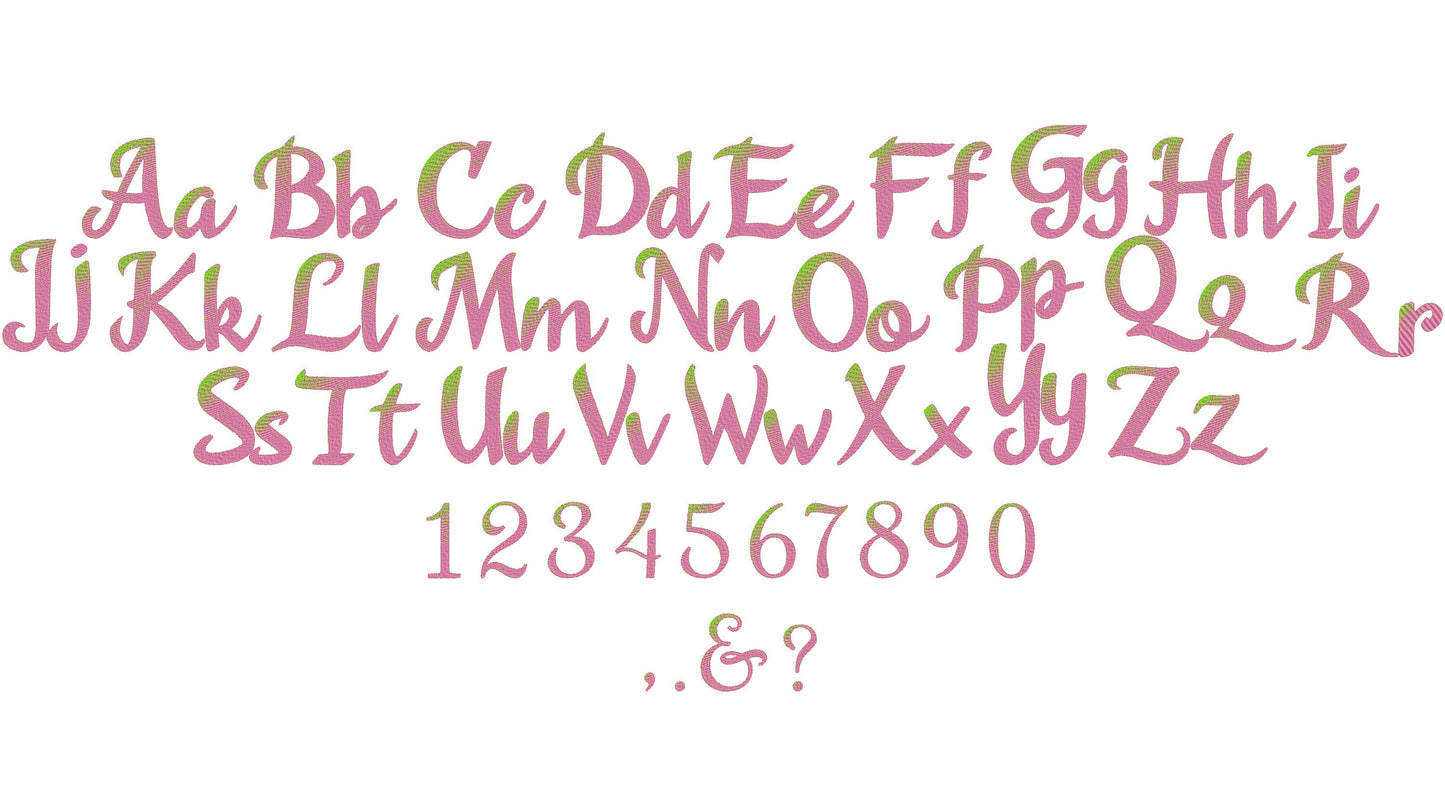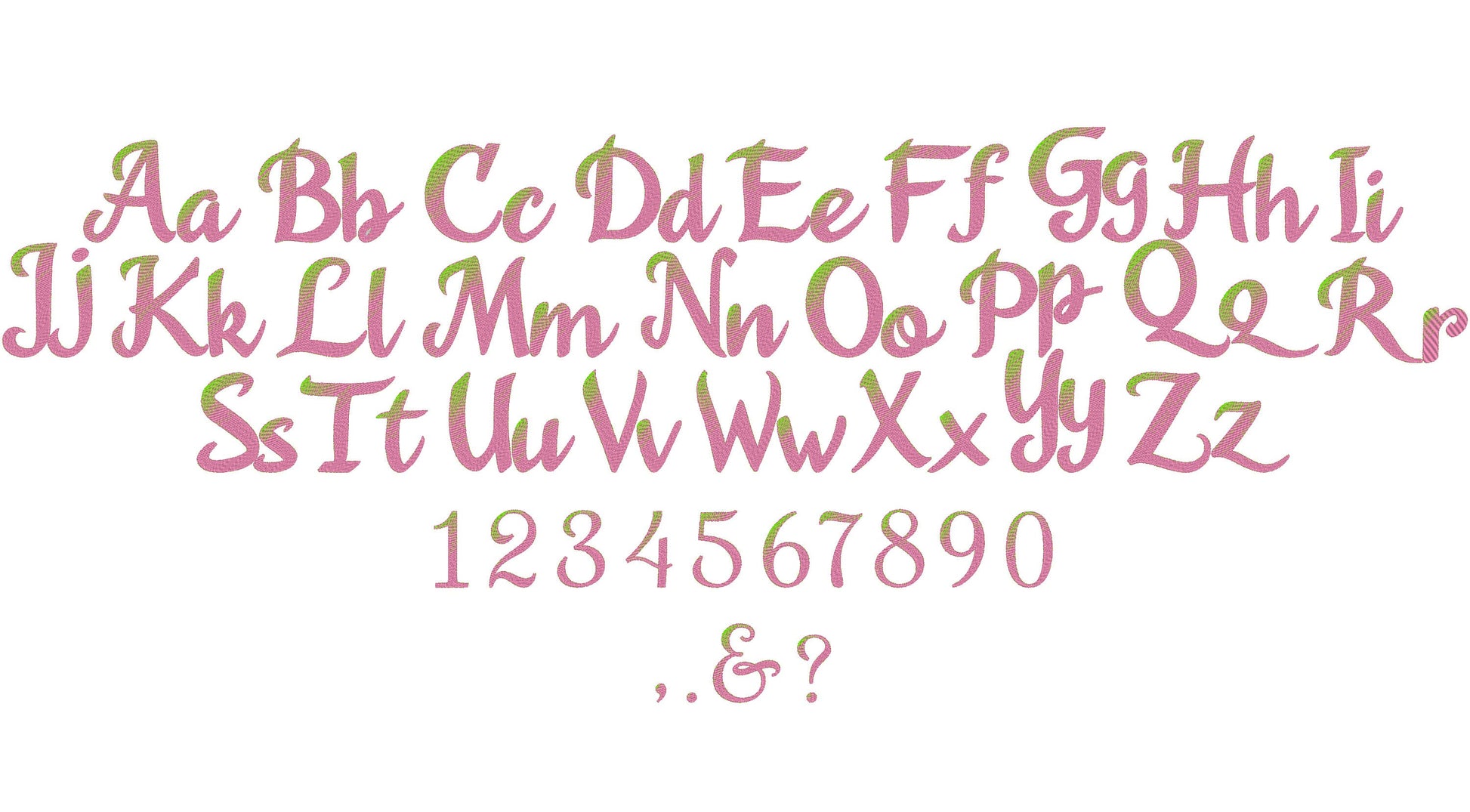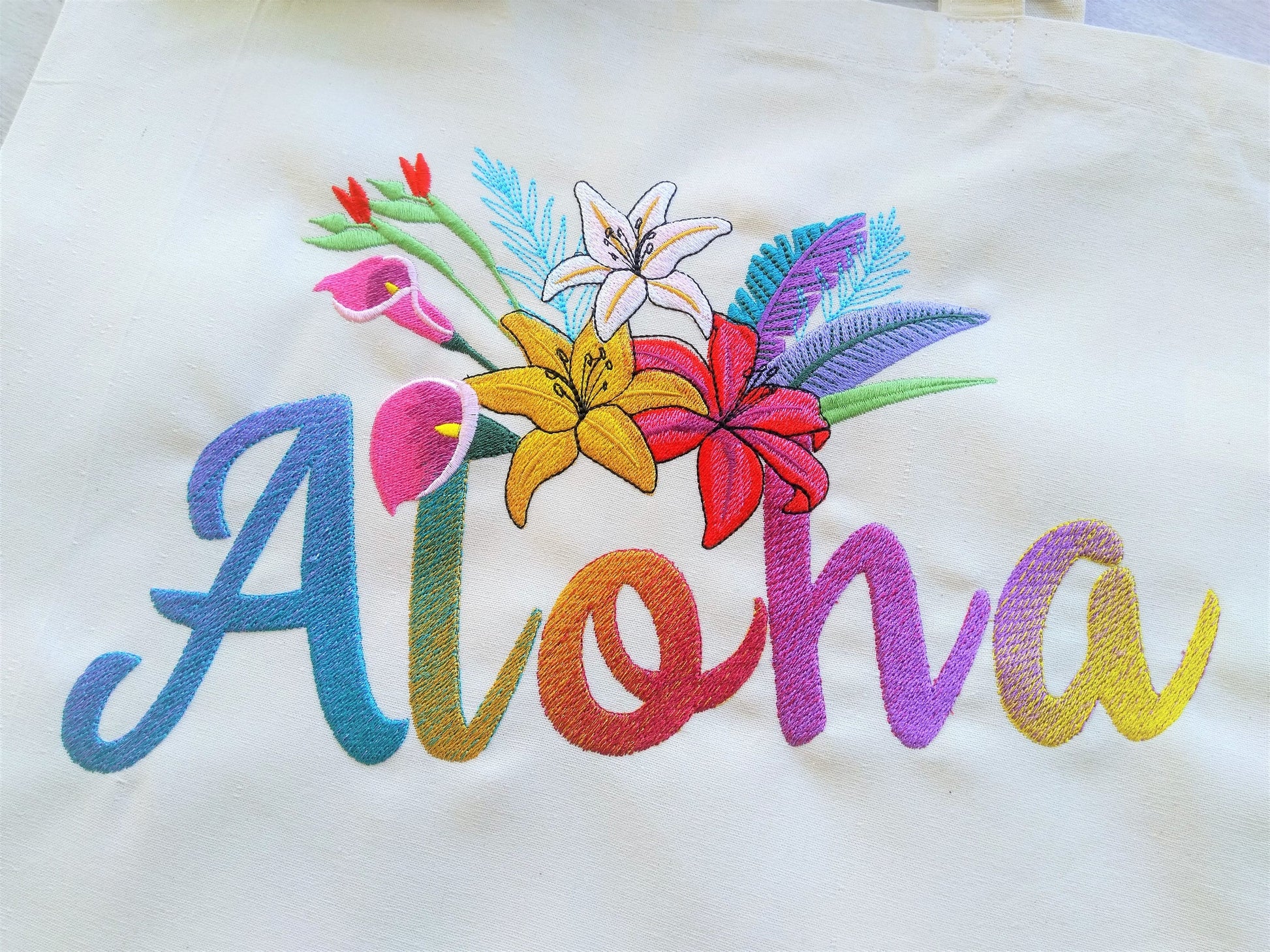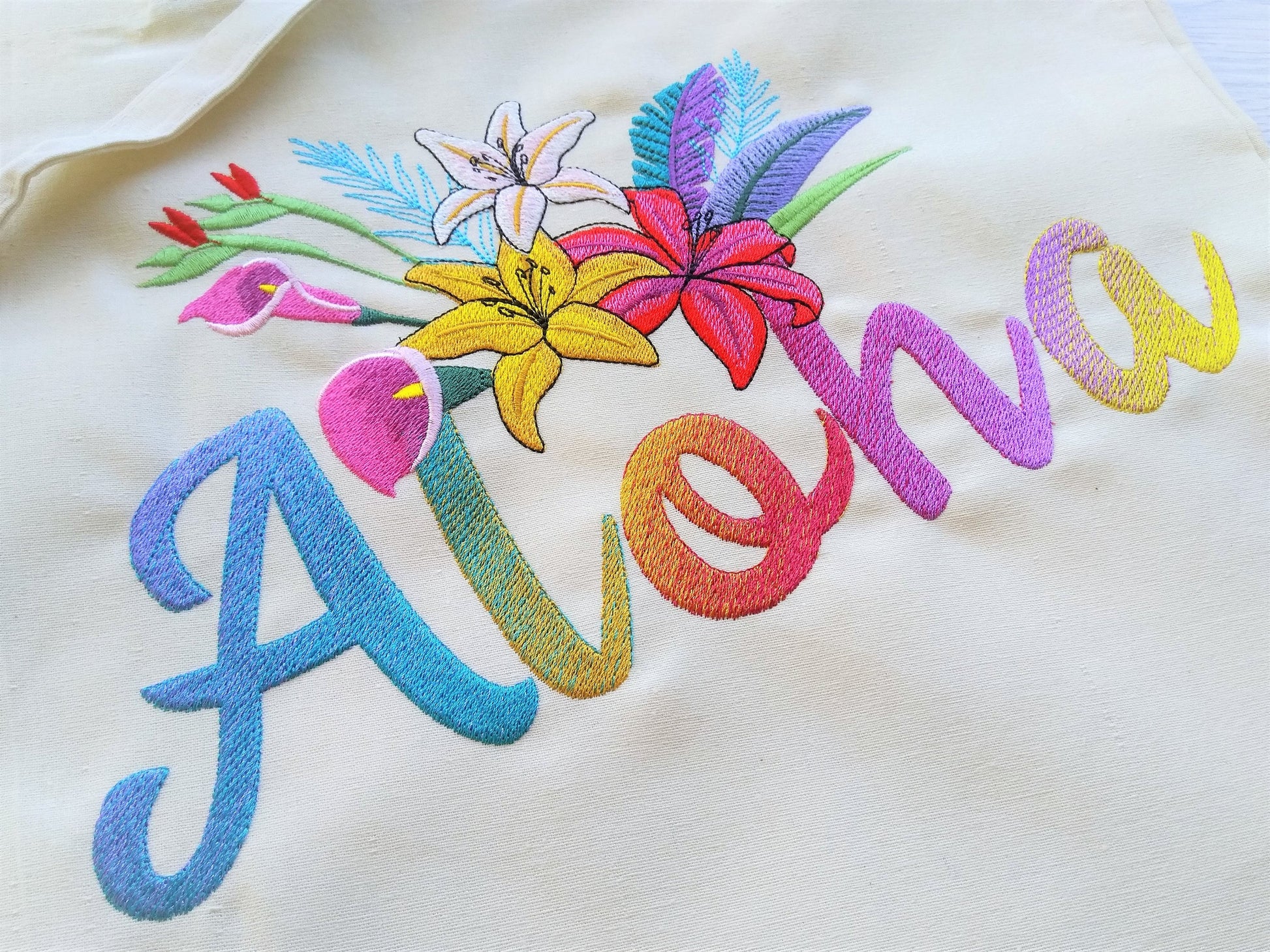
Iridescent Font Agnesa
Included: Uppercase A-Z, Lowercase a-z, Numbers 0-9, Punctuation
A rainbow iridescent font made with ordinary solid threads. No special thread needed. Fun for names, monograms and bright gifts.
The letters come in six sizes: 1.8, 2.8, 3, 4, 4.5 and 5 inches. Each letter is stitched in two regular thread colors that blend into a gradient, so it looks iridescent all by itself. Includes uppercase and lowercase letters, numbers 0 to 9 and punctuation.
• Iridescent 2-color font
• Uppercase and lowercase letters, numbers 0 to 9, punctuation
• 6 sizes, 1.8 to 5 in